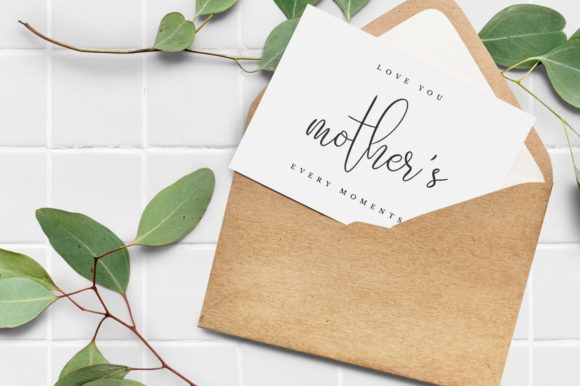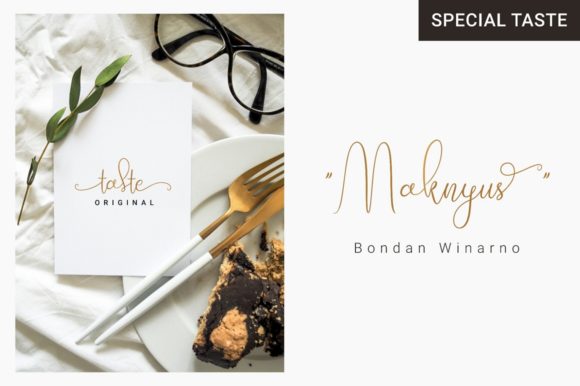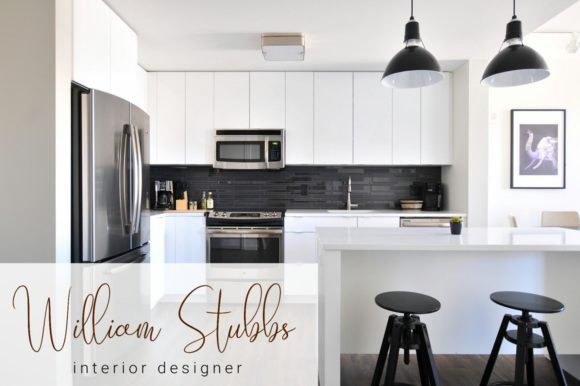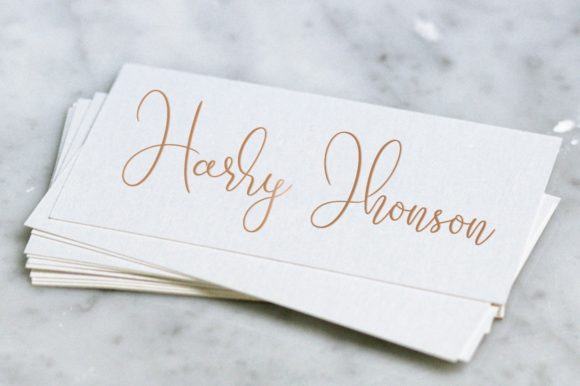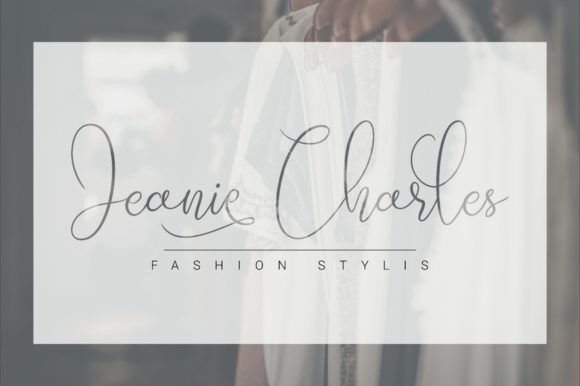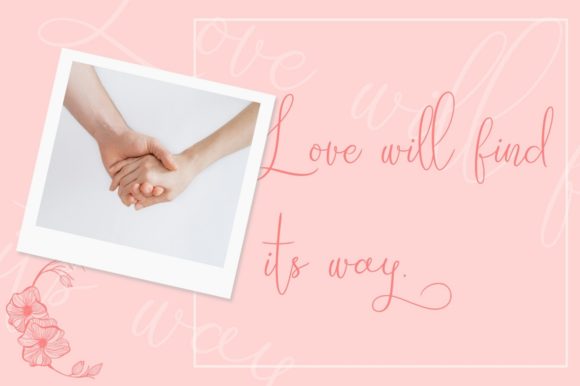
Introduction to Sathien Font
You’re in the midst of a creative project, pouring your heart and soul into every detail. The perfect font can elevate your design from good to great. That’s where the Sathien Font comes in – a luxurious calligraphy with thin lines that exudes elegance and sophistication.
Imagine adding a touch of high-end flair to your branding, logos, or ads. The Sathien Font is perfect for creating a chic and upscale look that sets you apart from the competition. Whether you’re working on a free download project or need a design resource for a paid client, this font is a valuable asset in your toolkit.
Key Features of Sathien Font
- Unique, modern font with a transparent background, allowing for seamless integration with various design elements.
- Includes a range of font sizes and styles, from 12pt to 72pt, and bold, italic, and regular styles.
- Designed with a high resolution of 300 DPI, making it suitable for print and digital applications.
Honest Review: Sathien Font
I recently stumbled upon the Sathien Font while searching for a high-quality font to use in my creative project. As a designer, I’m always on the lookout for new design resources that can elevate my work.
Here are some pros and cons of using the Sathien Font:
- What works well: ✨ The font is extremely versatile and can be used for a variety of creative projects, from headings to body text. The design is clean and modern, making it perfect for a range of applications.
- Limitations: ⚠️ The font only comes in a single style, which may limit its use in certain projects.
- Limitations: ⚠️ The transparent background may not work well in certain design contexts, requiring additional adjustments.
Overall, I’m impressed with the Sathien Font. It’s a great addition to any designer’s toolkit and can be used in a variety of creative projects. However, its limitations should be considered before making a final decision.
Introduction to Sathien Font
Sathien Font is suitable for various creative projects, including:
Tips for Getting the Most Out of Sathien Font